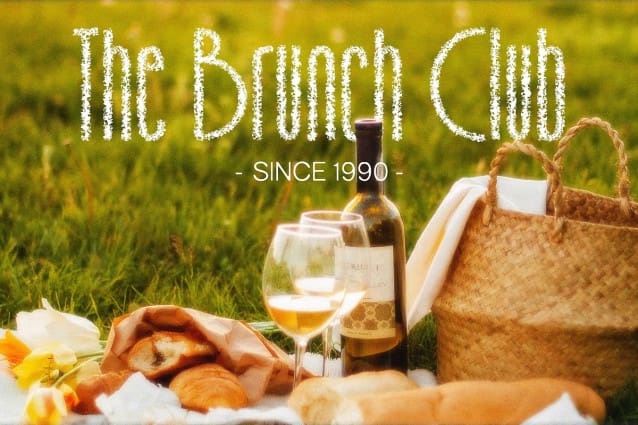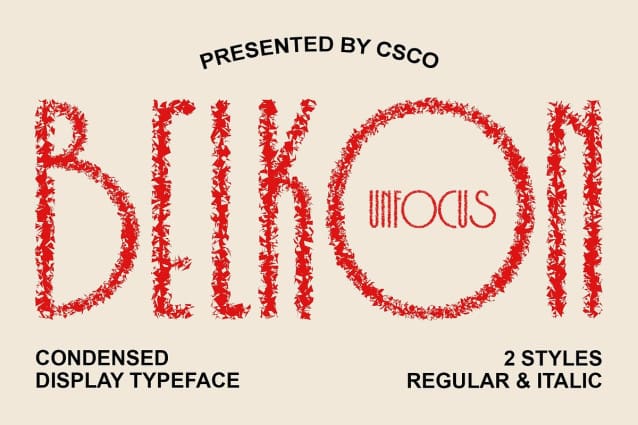
Belkon Unfocus Font
Belkon Unfocus is a modern sans serif font with an Art Deco style and an unfocused vibe, perfect for unique designs. Its blend of classic elegance and contemporary flair adds a sophisticated touch to any project.
Inspired by the iconic Art Deco movement, Belkon Unfocus features the geometric shapes and intricate details typical of the style. The unfocused vibe adds a modern twist, creating a look that is both timeless and contemporary.
Whether you’re designing a poster, logo, or branding materials, Belkon Unfocus is sure to make a statement. Its combination of Art Deco elegance and unfocused vibe makes it perfect for projects that require a touch of sophistication and originality.
Despite its intricate appearance, Belkon Unfocus is versatile and easy to use. The font works well in both large and small sizes, making it suitable for a variety of applications. With its blend of Art Deco style and unfocused vibe, BelkonUnfocus adds a unique and stylish touch to any design.